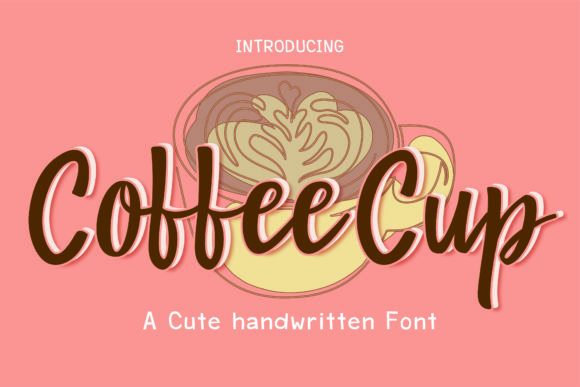
Coffee Cup Font: The Perfect Addition to Your Design Collection
Are you a designer or crafter looking for a font that can add a touch of playfulness and whimsy to your projects? Look no further than the Coffee Cup Font. This adorable handwritten font is incredibly versatile and can elevate a wide range of designs to new heights.
What is Coffee Cup Font?
Coffee Cup Font is a carefully crafted handwritten font that exudes a sense of fun and friendliness. Its playful and cute design makes it perfect for projects that require a personal touch. Whether you’re working on a branding project, a craft, or a digital design, this font is sure to bring a smile to your audience’s faces.
Key Features of Coffee Cup Font
- Cute and Playful Design: The Coffee Cup Font boasts a unique and charming design that is sure to capture attention.
- Handwritten Style: The font’s handwritten style gives it a personal and approachable feel, making it perfect for projects that require a human touch.
- Incredibly Versatile: The Coffee Cup Font can be used in a wide range of designs, from branding and advertising to crafting and digital design.
- Easily Readable: Despite its playful design, the font is easily readable, making it perfect for both headings and body text.
Use Cases for Coffee Cup Font
The Coffee Cup Font is incredibly versatile, making it suitable for a wide range of projects. Here are some use cases to get you started:
- Branding and Advertising: Use the Coffee Cup Font to create eye-catching logos, advertisements, and marketing materials that stand out from the crowd.
- Crafting and DIY Projects: Add a personal touch to your crafting and DIY projects, such as handmade cards, gift tags, and labels.
- Digital Design: Use the Coffee Cup Font in digital designs, such as social media graphics, blog posts, and website headers.
- Stationery and Invitations: Create beautiful stationery, invitations, and greeting cards with the Coffee Cup Font.
Tips for Using Coffee Cup Font
To get the most out of the Coffee Cup Font, here are some tips to keep in mind:
- Pair with Other Fonts: Experiment with pairing the Coffee Cup Font with other fonts to create a unique and visually appealing design.
- Use in Headings and Titles: Use the Coffee Cup Font in headings and titles to add a touch of personality to your designs.
- Experiment with Colors: Try out different colors and color combinations to find the perfect match for your design.
| Author | GoodMoodType |
In conclusion, the Coffee Cup Font is a versatile and adorable handwritten font that can add a touch of playfulness and whimsy to a wide range of designs. Its cute and playful design, paired with its readability and versatility, make it a must-have for designers and crafters. Whether you’re working on a branding project, a craft, or a digital design, the Coffee Cup Font is sure to elevate your design to new heights.